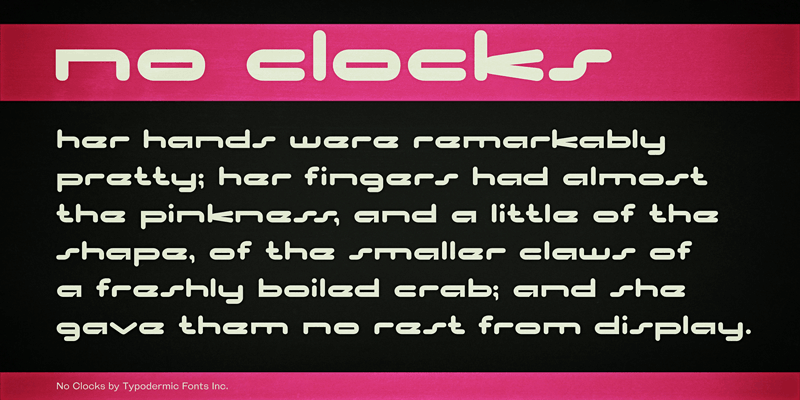
No Clocks is a rakish headline howitzer. This font includes a license that allows free commercial use: sometimes referred to as a desktop license. This allows you to install the font on a computer and use it to create posters, web graphics, game graphics, t-shirts, videos, signs, logos and more. Read the license agreement for details. If you'd like to embed this font in an app, ebook, on the web or anything that's not covered by the desktop license agreement, visit the link below. You'll find distributors who offer different types of licenses or you can contact me for help. http://typodermicfonts.com/no-clocks/ |